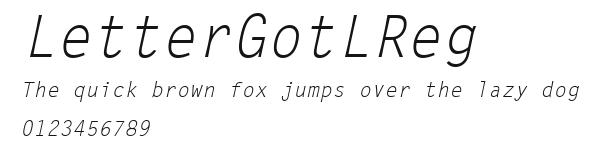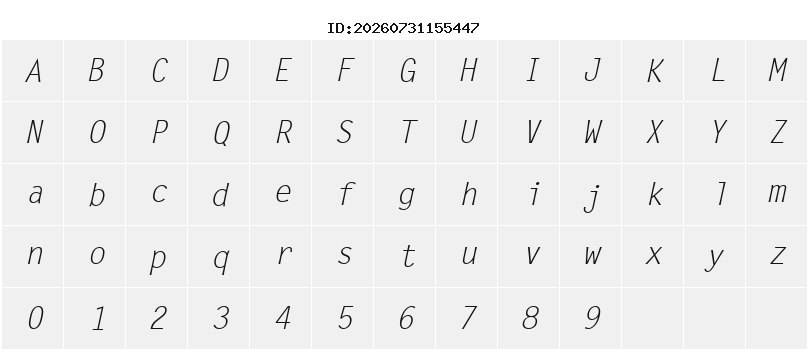
LetterGotLReg Preview
• Font Name: LetterGotLReg
• Font ID: URW:LetterGotL-ReguItal:1994
• Full Font Name: LetterGotLReg Italic
• PostScript Name: LetterGotL-ReguItal
About LetterGotLReg.ttf
LetterGotLReg.ttf is a modern, elegant sans-serif font designed for ultimate readability and visual harmony. Perfect for branding, headlines, web design, and print materials.